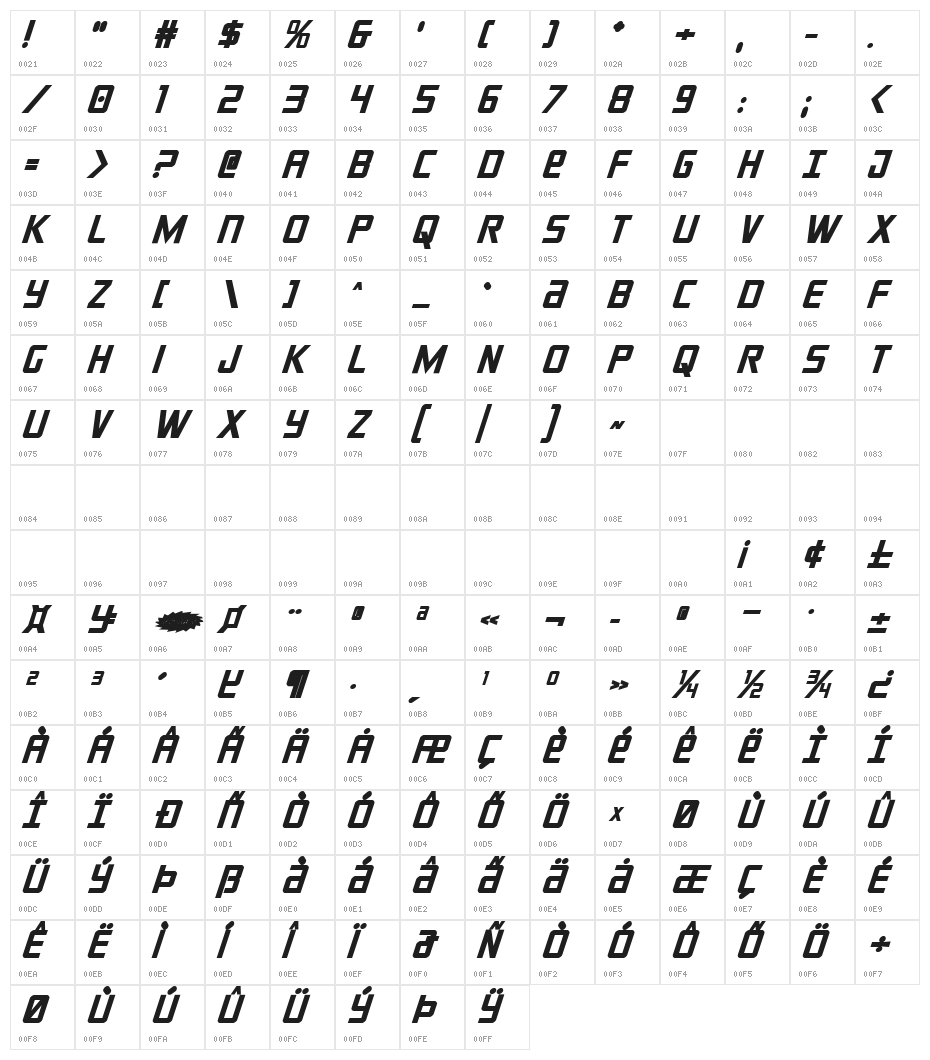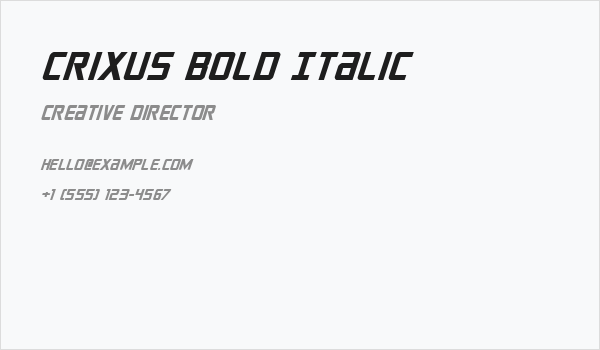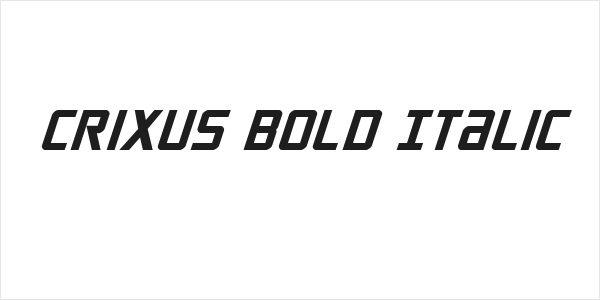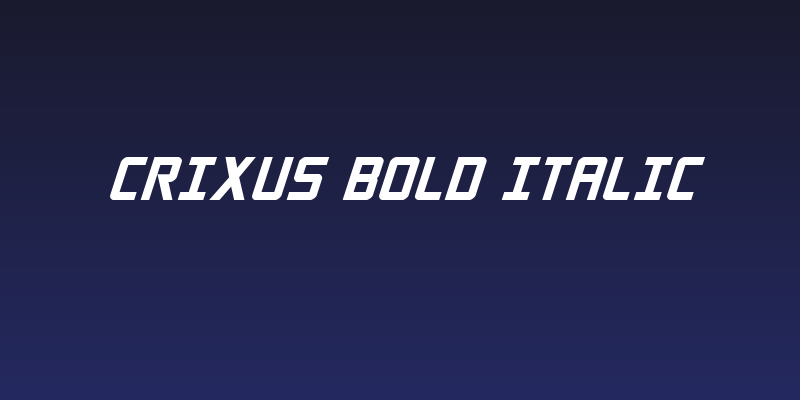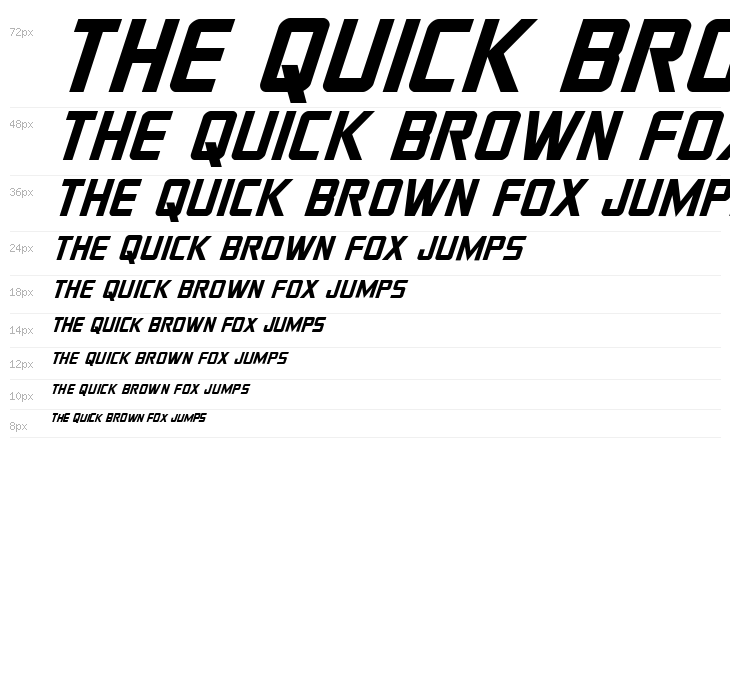
Crixus Bold Italic Font
Crixus Bold Italic Description
This font exhibits a bold and italicized style, characterized by its strong geometric forms and angular edges. The letters are slanted, giving a dynamic and forward-moving appearance. The uppercase and lowercase alphabets maintain a consistent style, with a modern and sleek design. The numerals are equally bold, complementing the overall aesthetic. Special characters are distinct and maintain the same angular and bold characteristics, ensuring uniformity across all glyphs. This font is designed to stand out, making it suitable for attention-grabbing applications.
| Proposed Projects | Ideal for sports branding, dynamic posters, modern logos, and headlines that require a strong visual impact. |